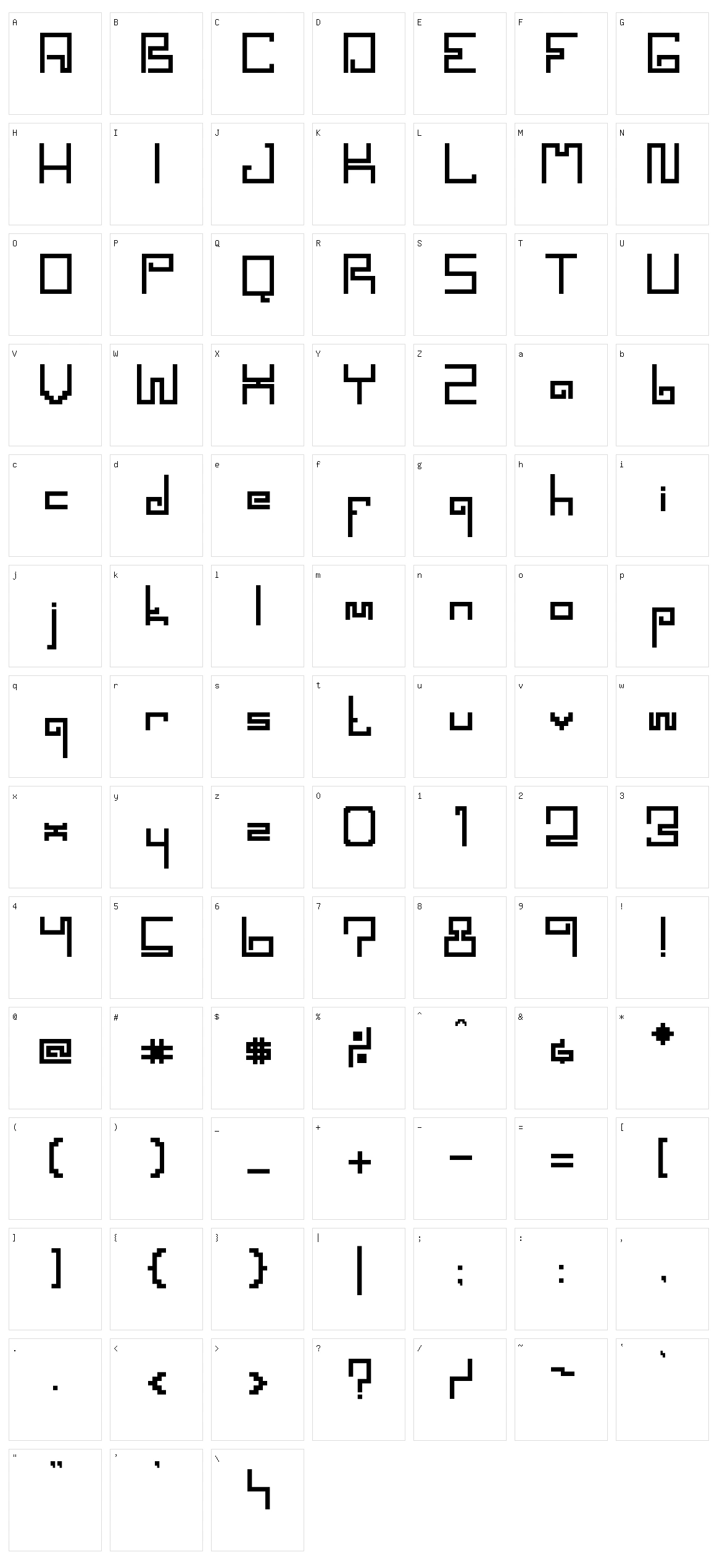
By Eric Wiryanata. November 2006.
Space Worm... i just thought that the name would fit the font.
Note#2: This typeface is ideal for logos and general design.
It isn't very suitable to be used with word-processors as it lacks some symbols and letters.